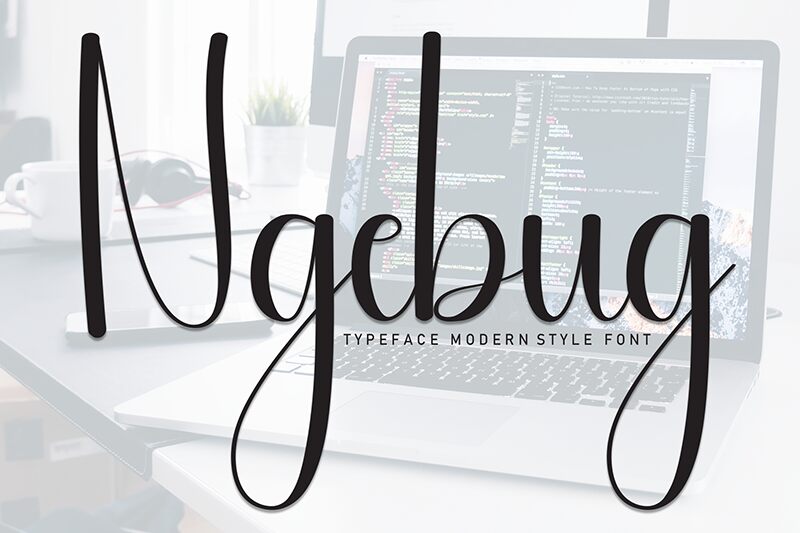
Ngebug
Ngebug font blends the elegance of calligraphy with a modern aesthetic, presenting graceful curves in every character. Designed by Andi Moz, this free handwritten font captures a flowing arrangement that alludes to its origins and the weight factor on which it is based. Enjoy clean lines along with sophisticated curves showcased artistically across each presented letter.
Use Ngebug in tattoo designs, fashion branding, cosmetics branding and packaging, skincare products packaging and labeling, poster titles or main headings, stationery utensils customizations (pens/pencils), title movies or series posters/main screen images.